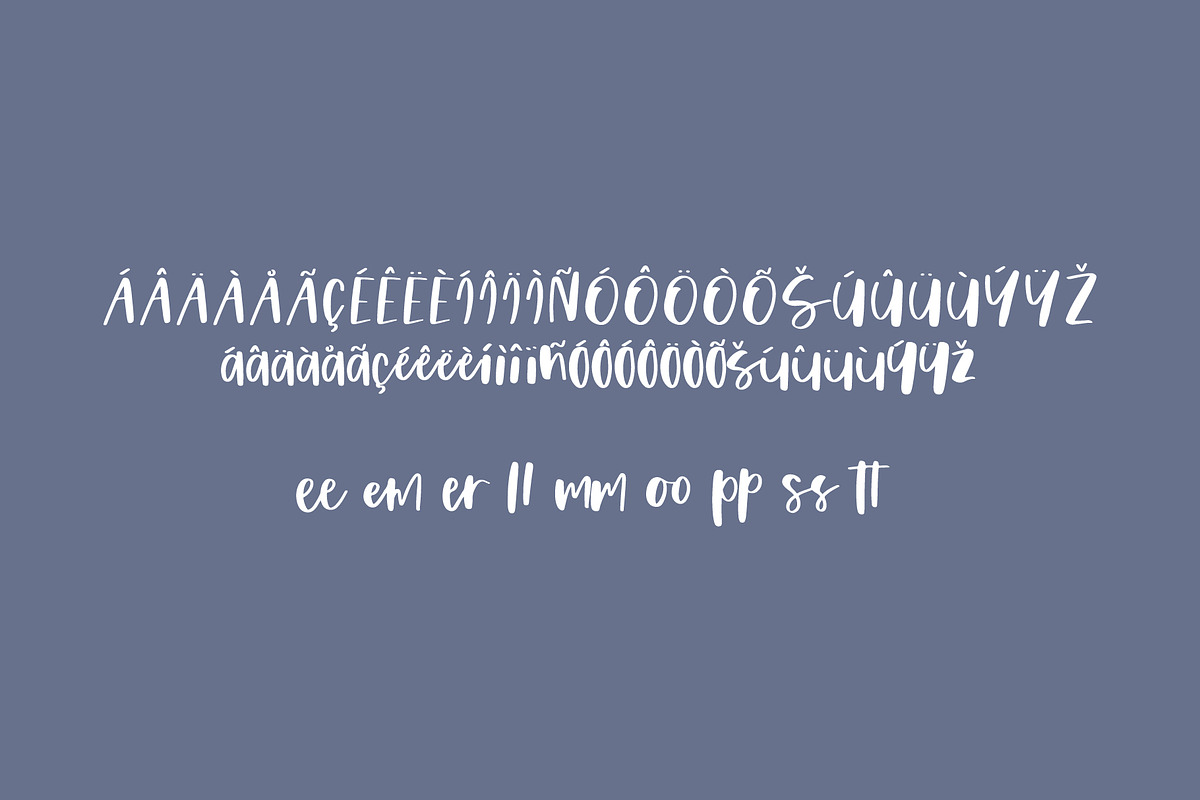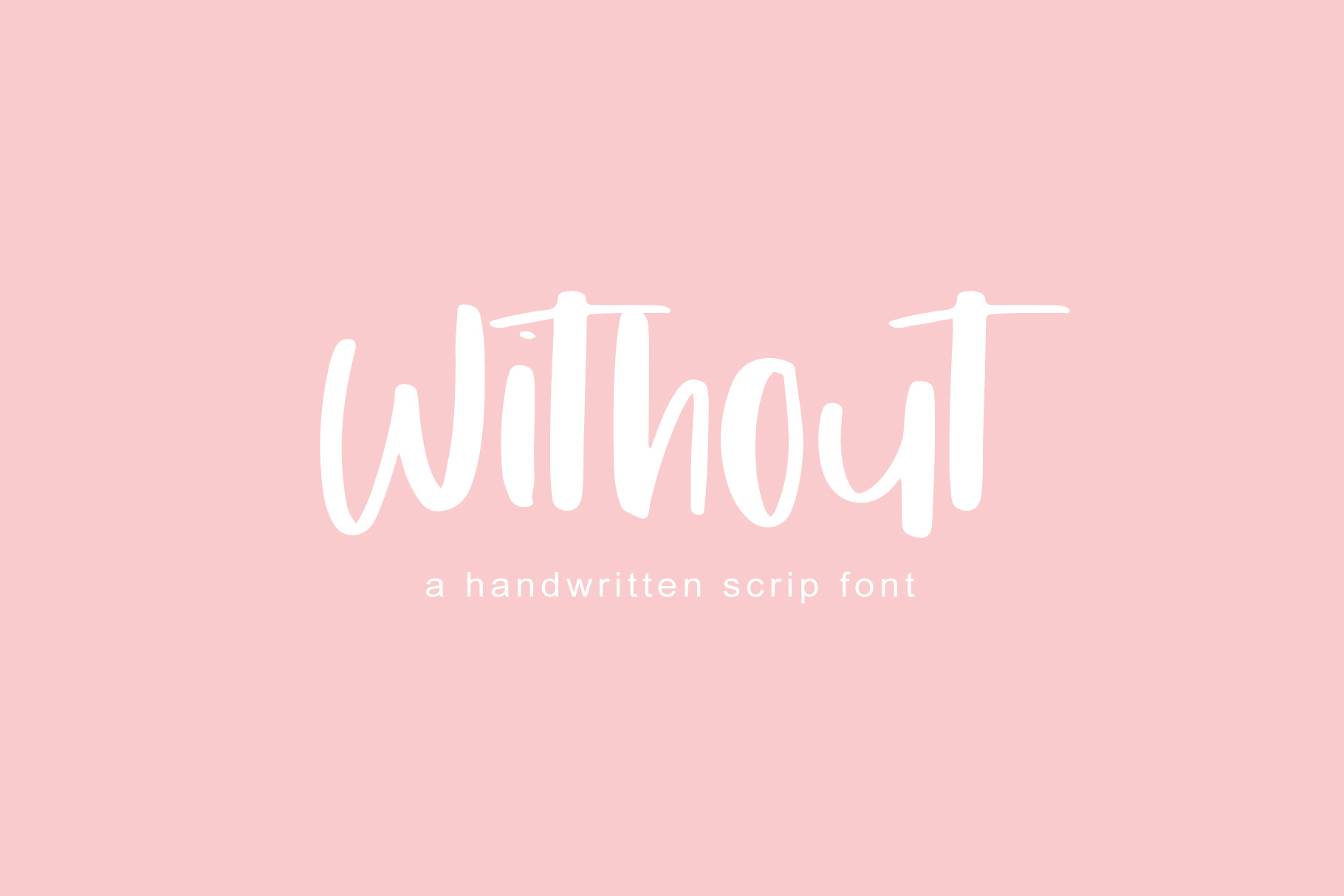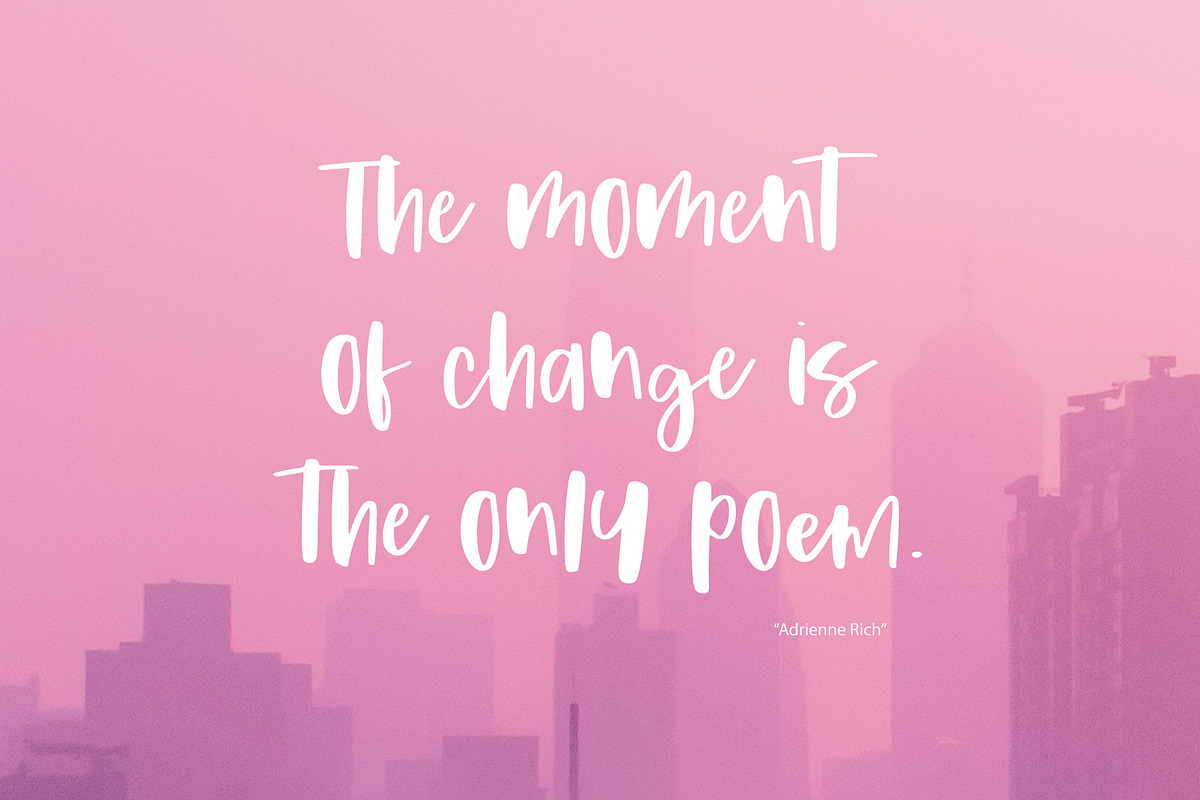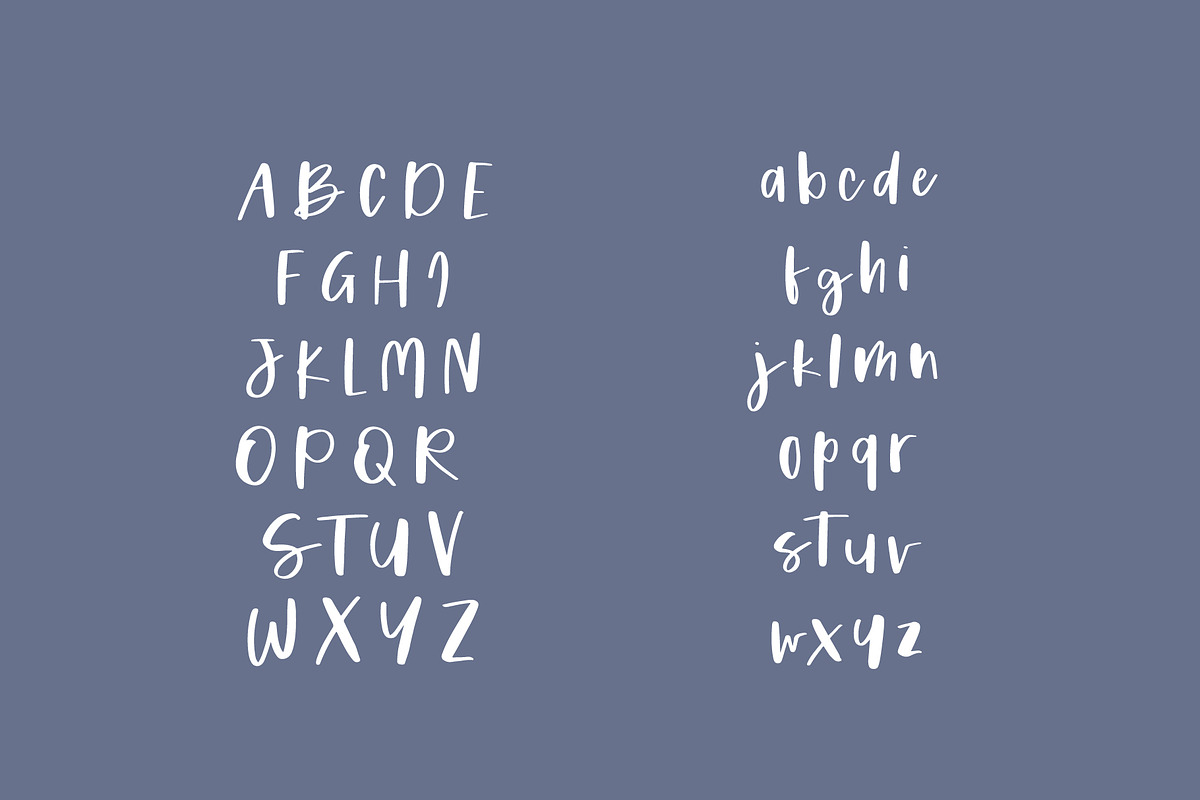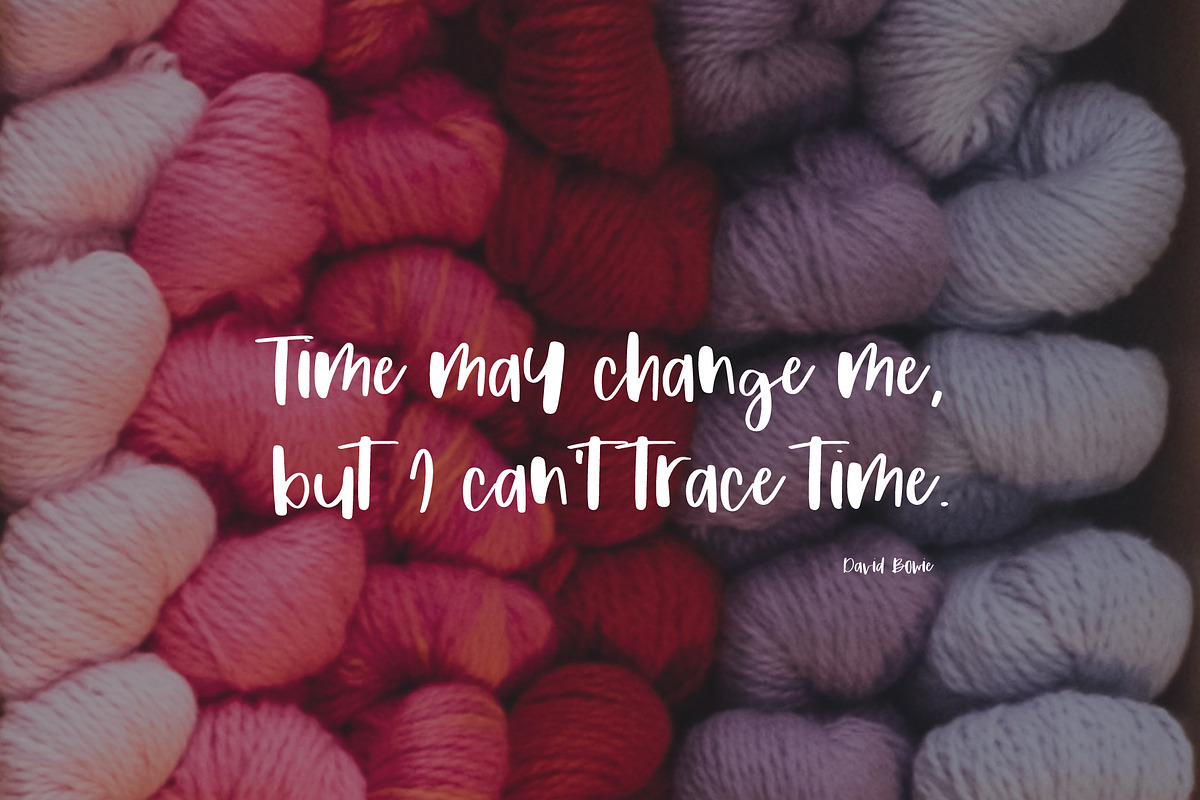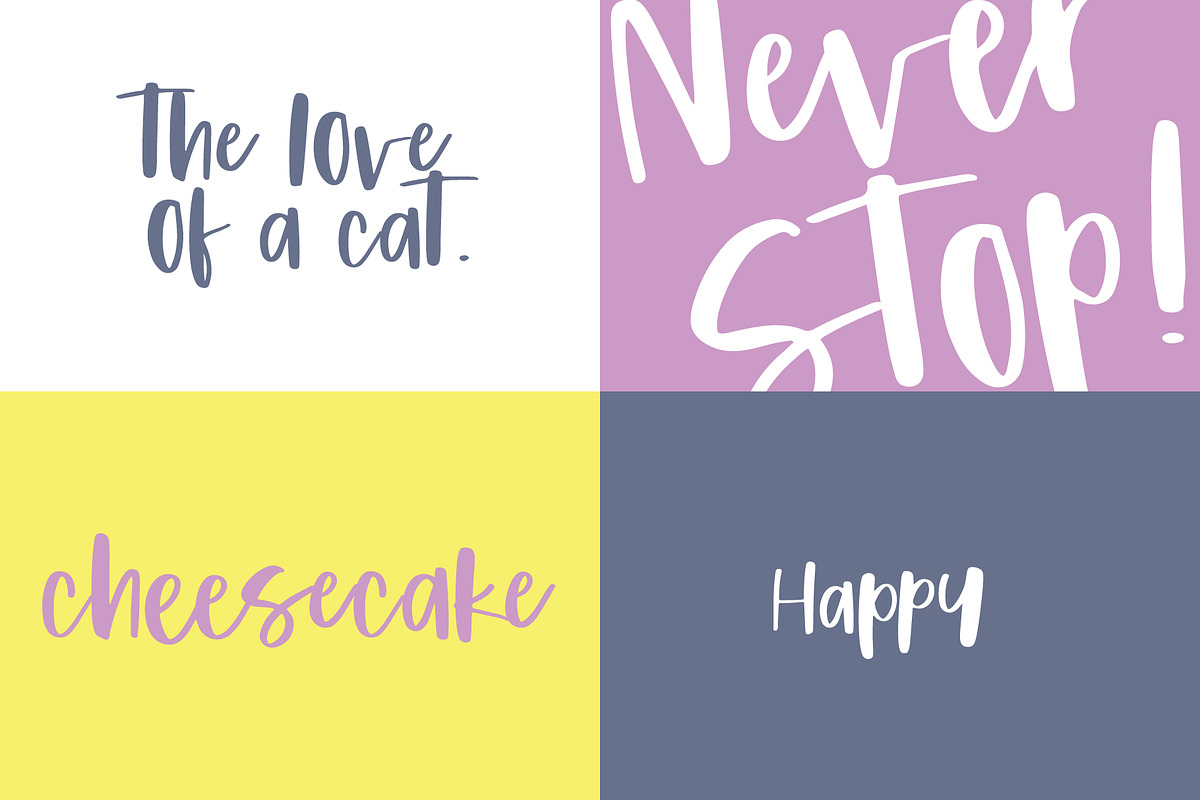
Without | Handwritten Font
Without A Chic and simple font perfect and created by hand. This handwritten font is ideal for branding and decorates your any project.
Every single letter has been creative carefully. This font is perfect for making your set of invitations, Brand, blog posts, DIY projects, greeting cards, labels, quotes, posters, wall art, branding, packaging, websites, photo & photography overlays, signs, window art, scrapbooking, tags and so much more!
multilingual support for the following languages: Cornish, Danish, Dutch, English, Estonian, Faroese, Filipino, Finnish, French, Galician, German, Icelandic, Indonesian, Irish, Italian, Norwegian Bokmål, Norwegian Nynorsk, Portuguese, Spanish, Swahili, Swedish, Swiss German.